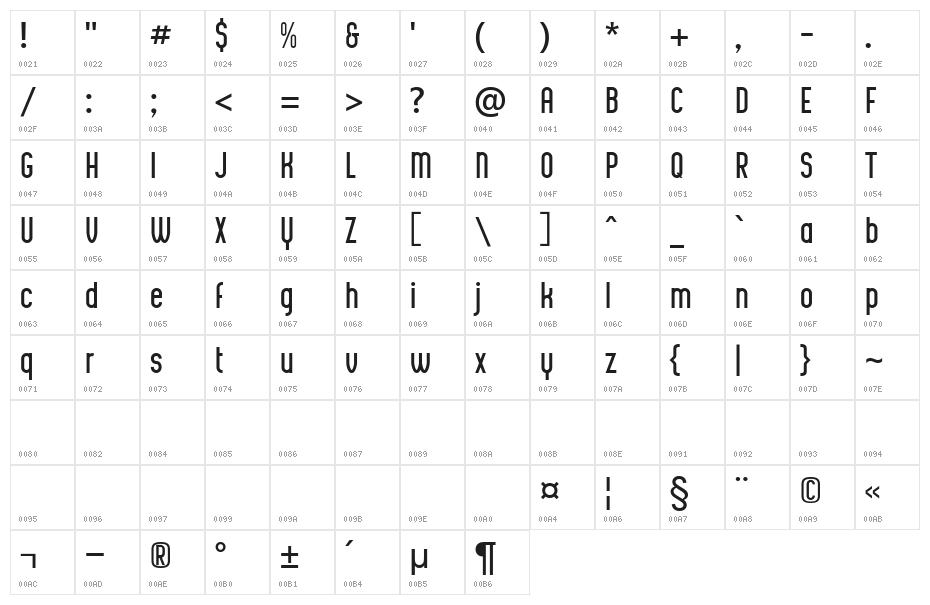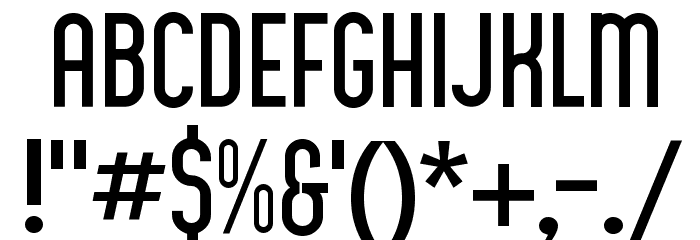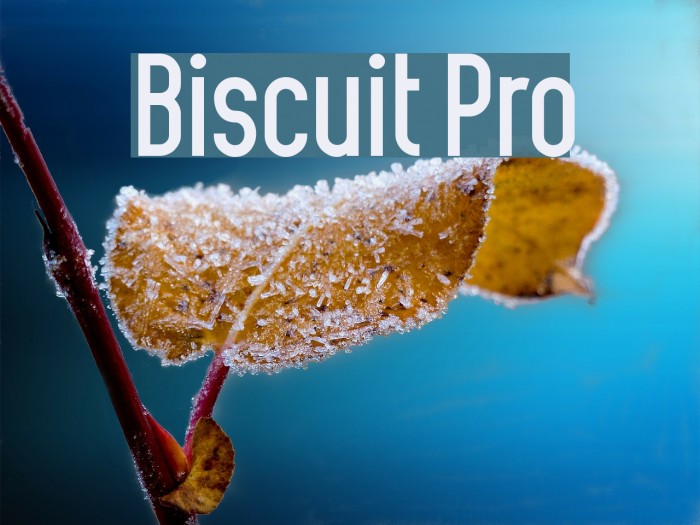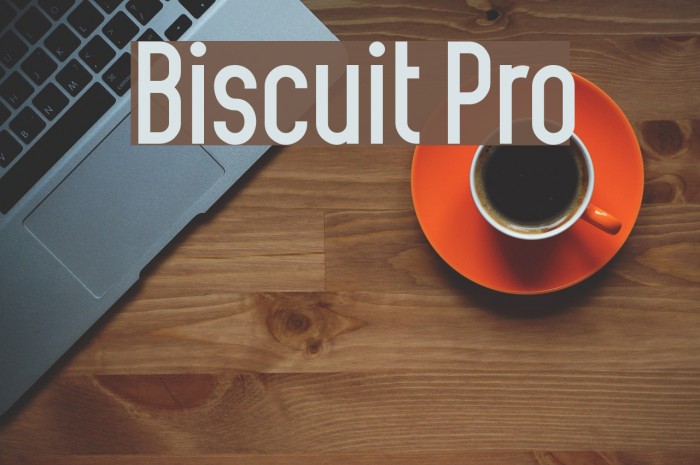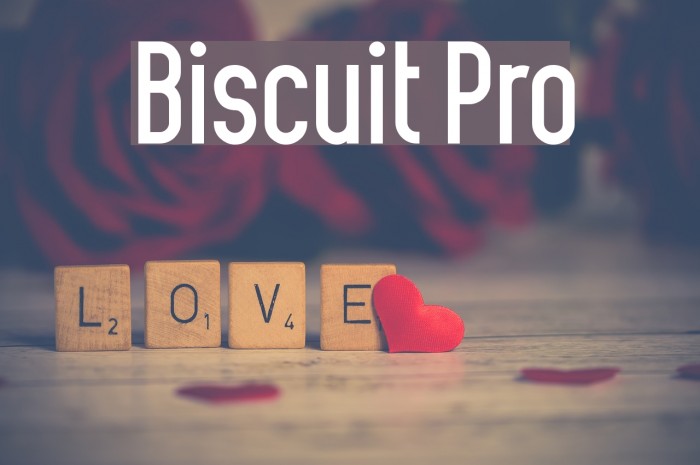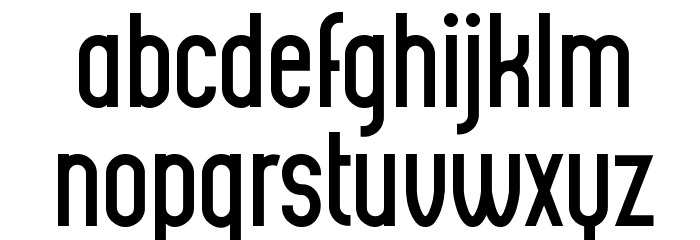
Biscuit Pro Font
Biscuit Pro Description
This font features a clean and modern sans-serif style with a slightly condensed appearance. The characters are uniform in stroke width, providing a consistent and harmonious look. The uppercase letters are tall and commanding, while the lowercase letters maintain a balanced and approachable feel. The numerals are clear and easy to read, making them suitable for a variety of applications. Special characters are well-integrated, ensuring versatility in design projects. The overall design is sleek and contemporary, making it ideal for modern branding and digital interfaces.